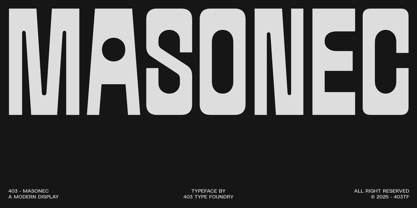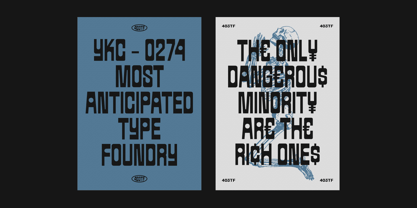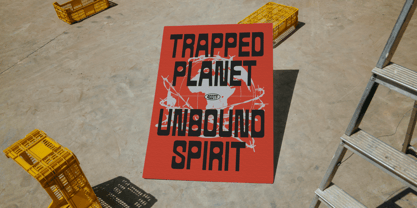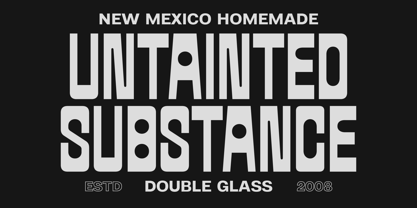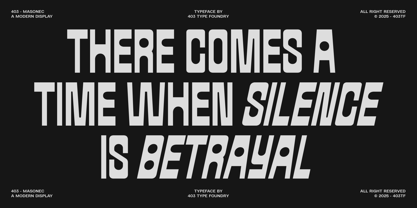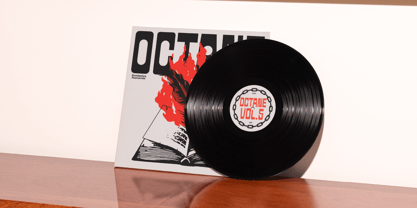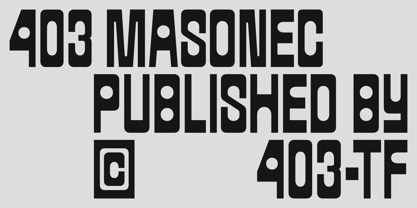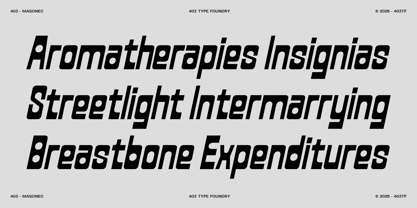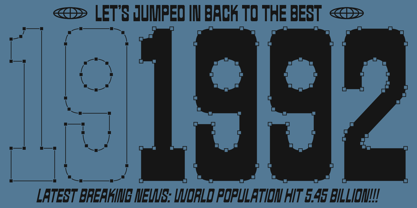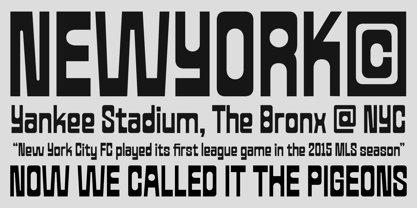
403 Masonec
403 Masonec - Make Bold Design Loud and Clear.
403 Masonec is a brutalist display typeface built for impact. It gives every layout a raw, structured presence with its modular structure, circular counterforms, and rigorous geometry. Clean, loud, and unquestionably modern, Masonec gives your design the impact it deserves, whether it's printed on vinyl sleeves, shown on billboards, or incorporated into a streetwear brand system.
Inspired by industrial signage, brutalist architecture, and grid-based design systems, each character in 403 Masonec is designed as a block of visual power. Vertical rhythm shapes the structure, while rounded counters break through the density to create contrast and breathing space. With its monospaced feel and assertive tone, this typeface doesn’t whisper—it declares. It thrives in editorial design, transit graphics, music packaging, and sports or protest visuals, adding weight and character wherever it appears.
403 Masonec is ideal for creative professionals who lean into bold structure and strong typographic expression—graphic designers, creative directors, editorial teams, streetwear brands, and music labels. It excels in high-impact formats like posters, magazine headlines, album covers, branded merch, web hero sections, and motion graphics. This font belongs at the forefront of your design, not in the background.
Features
• Industrial brutalist design with strong visual impact
• Full A–Z uppercase and lowercase set
• Two styles: Regular and Slanted
• 500+ glyphs with Latin support, accents, symbols, arrows, and math
• Grid-based vertical construction
• Unique circular counterforms
• Retro-futuristic and editorial-friendly aesthetic
• Includes numerals, punctuation, and symbols
• Supports up to 270 Latin-based languages
• Perfect for branding, posters, album covers, apparel, web hero text, and editorial use